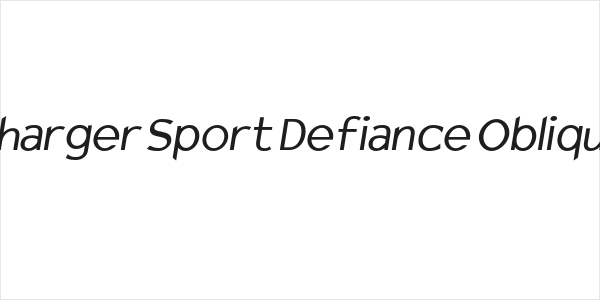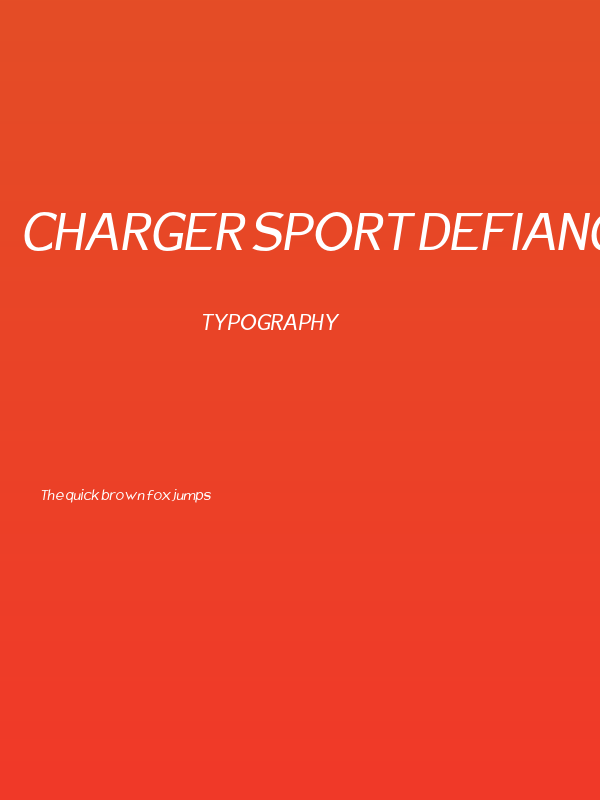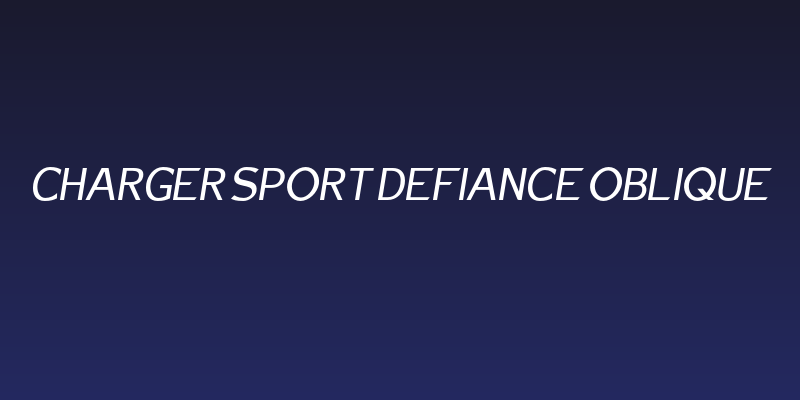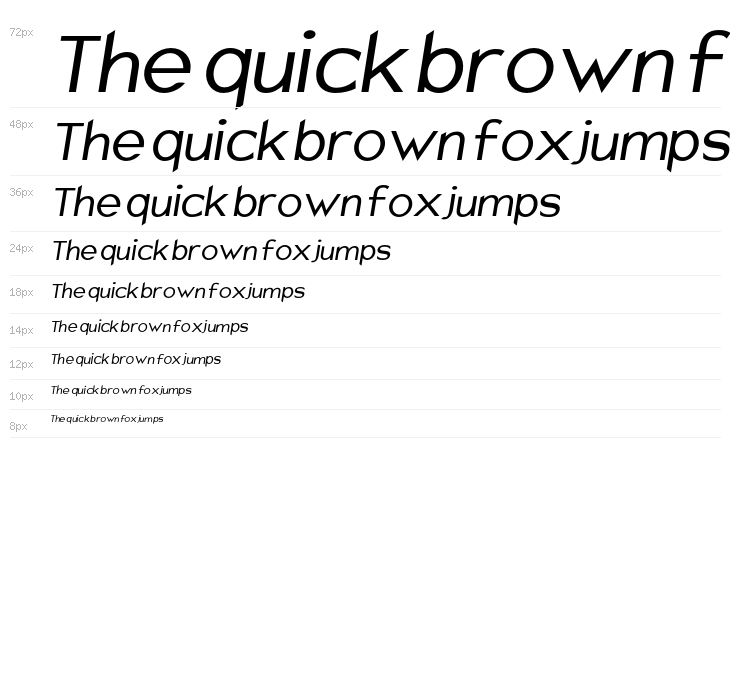
Charger Sport Defiance Oblique Font
Charger Sport Defiance Oblique Description
This font features a sleek and modern design with an oblique style, giving it a dynamic and sporty appearance. The characters are slightly slanted, enhancing the sense of motion and energy. The strokes are clean and uniform, with a consistent width that contributes to its contemporary look. The uppercase and lowercase letters are well-proportioned, and the numerals are clear and easy to read. Special characters are included, maintaining the font's cohesive style. Overall, this font exudes a sense of confidence and modernity, making it suitable for a variety of design applications.
| Proposed Projects | Ideal for sports branding, dynamic advertising, modern web design, and energetic product packaging. |